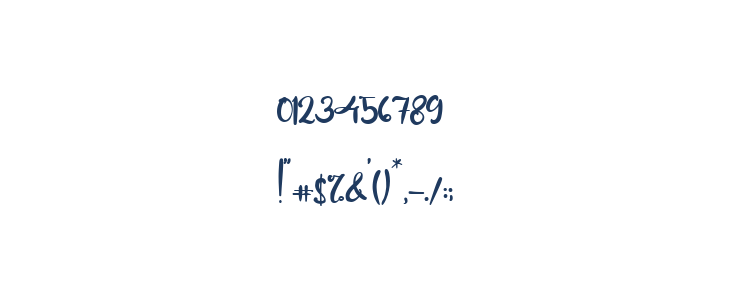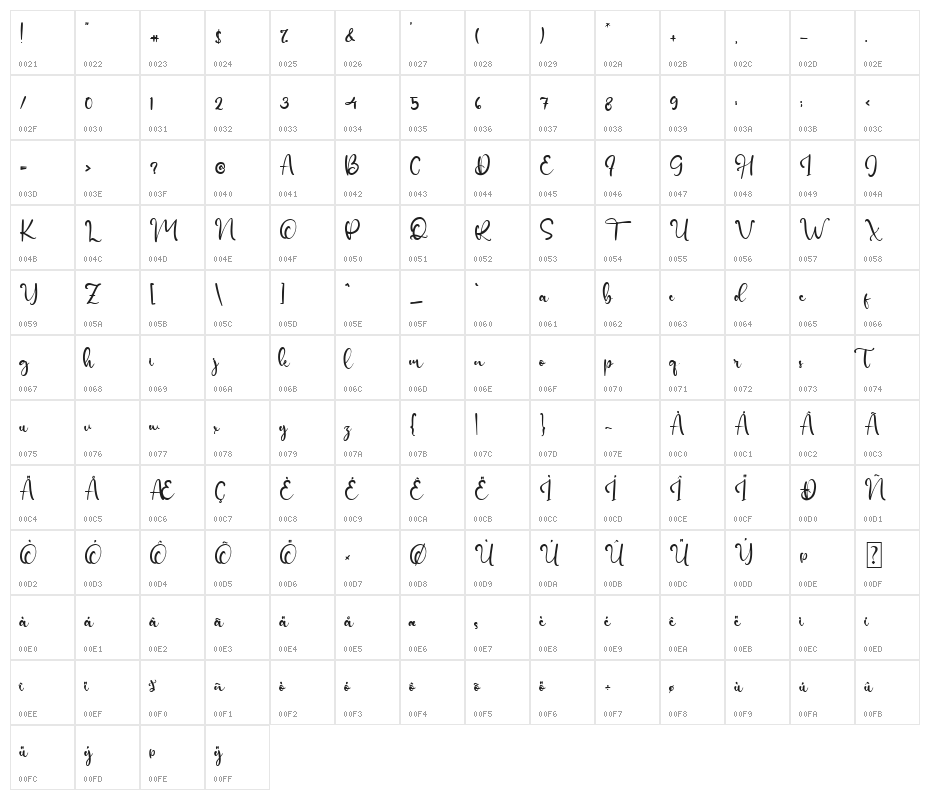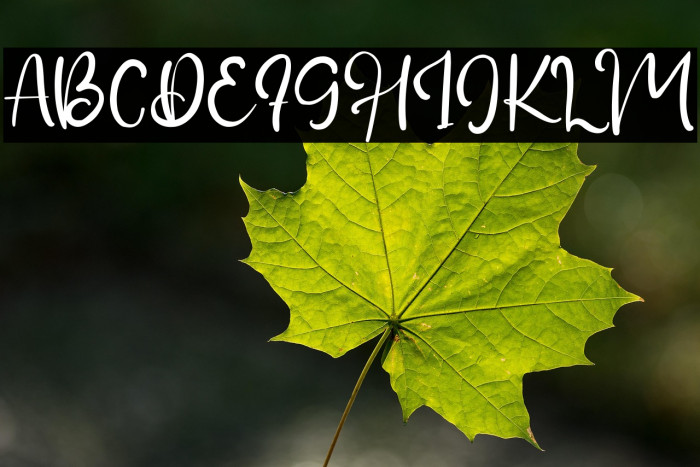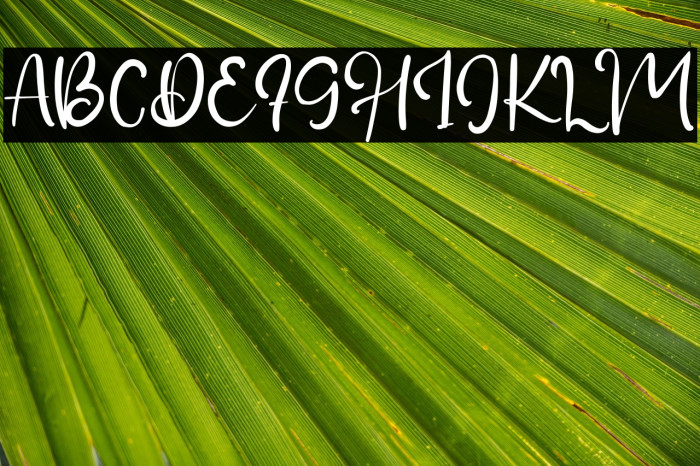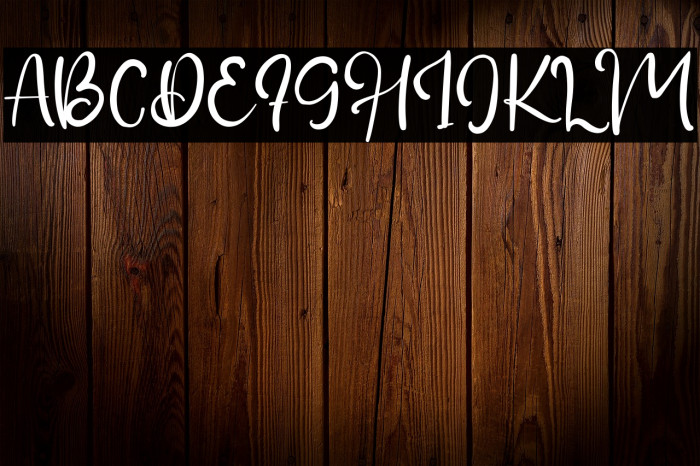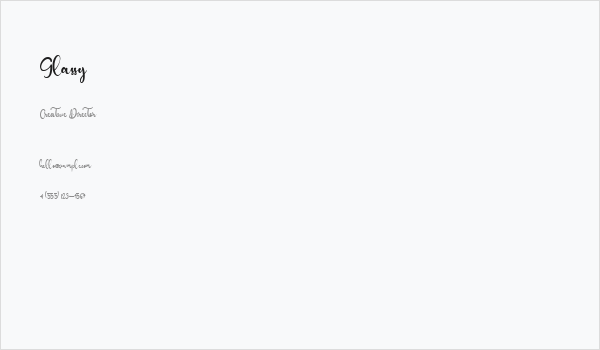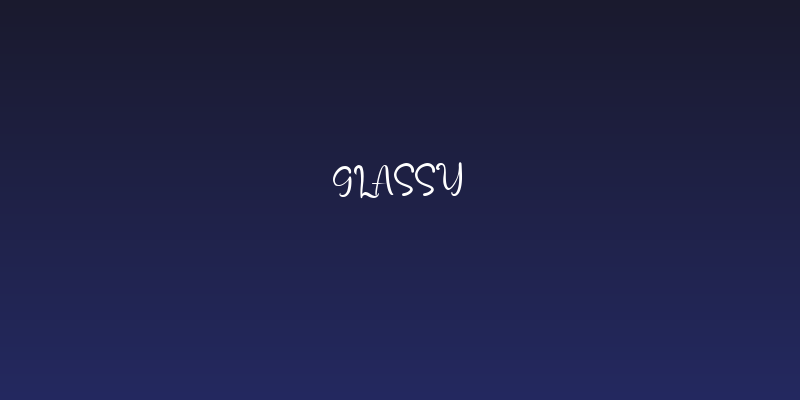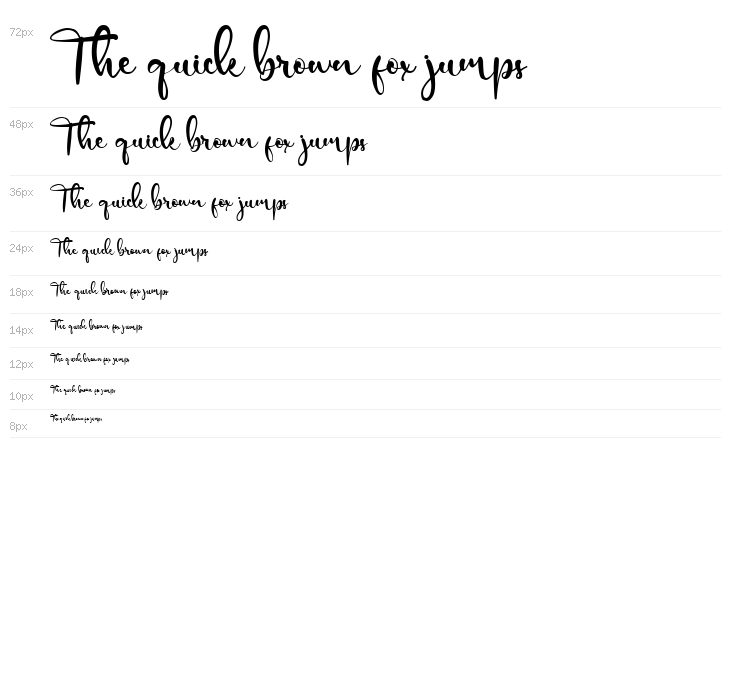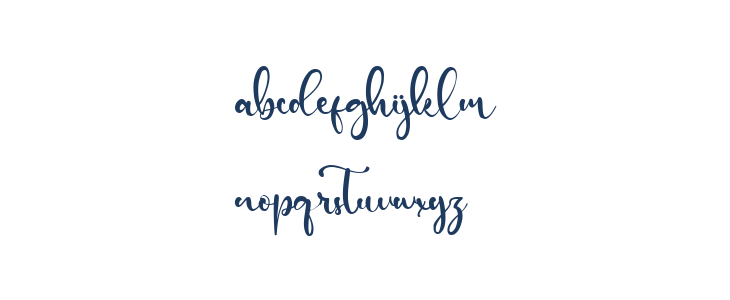
Glassy Font
Glassy Description
This font features a flowing, cursive style with elegant loops and swirls, giving it a handwritten appearance. The uppercase letters are bold and expressive, while the lowercase letters maintain a consistent fluidity, enhancing the script-like quality. Numbers and special characters are designed to match the overall aesthetic, ensuring a cohesive look. The strokes vary in thickness, adding a dynamic contrast that emphasizes the artistic flair of the font. Its decorative nature makes it suitable for creative and expressive design projects.